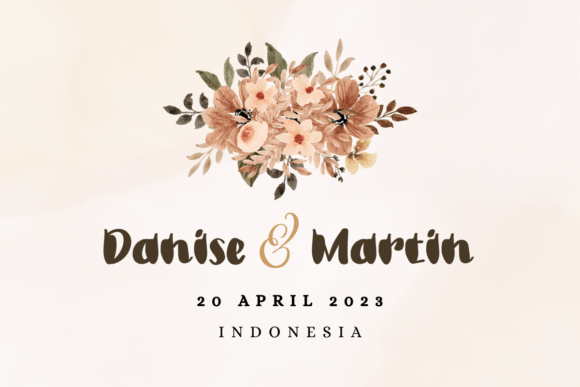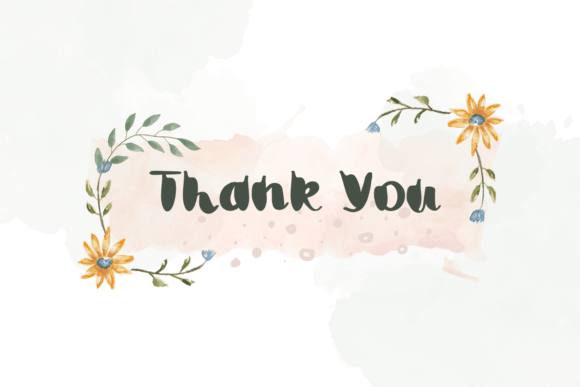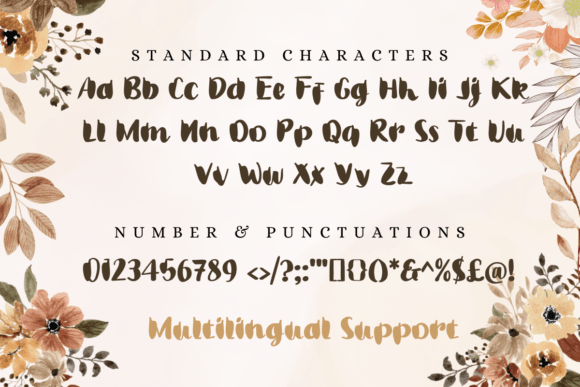
Introduction to Monique Browne Font
Introducing Monique Browne, a unique hand-lettering font that combines a distinct aesthetic with a touch of elegance.
This font captures attention with its unconventional style while maintaining a pleasing visual appeal Inspired by the beauty of blooming flowers, Monique Browne showcases a warm brown color palette, adding a charming earthy tone to your designs.
Key Features of Monique Browne Font